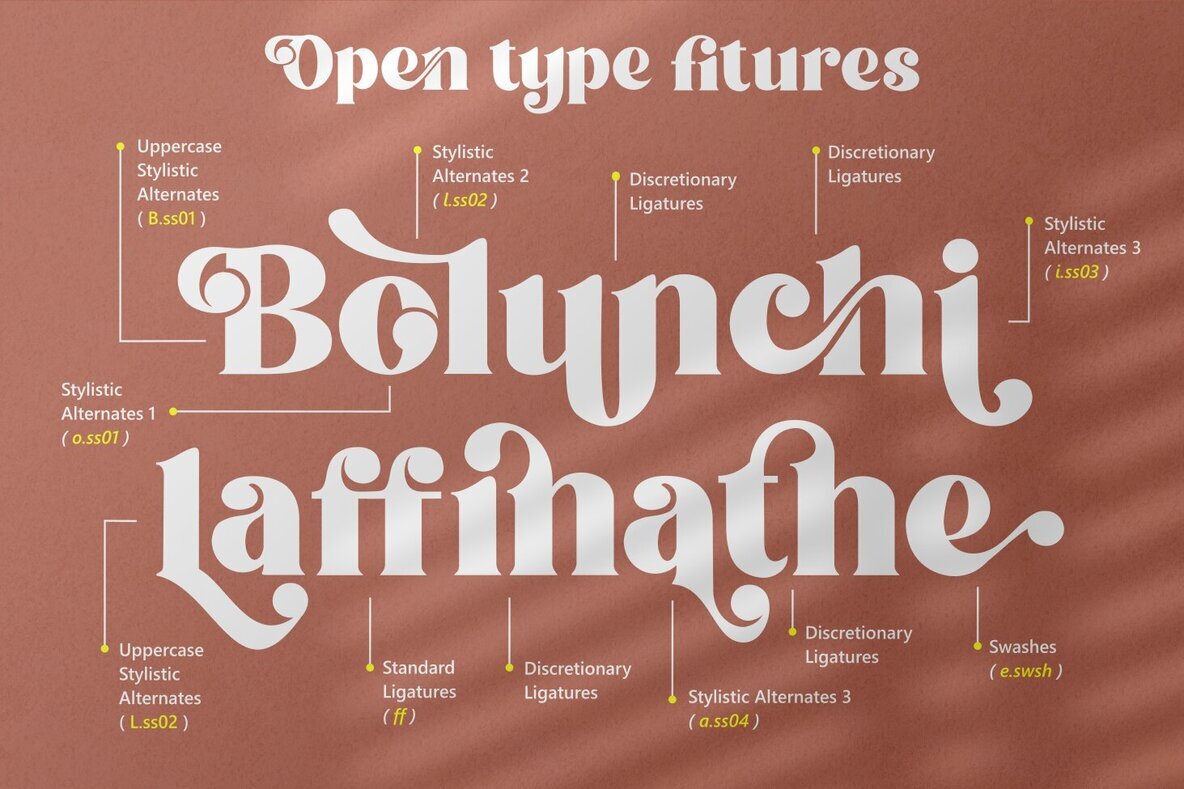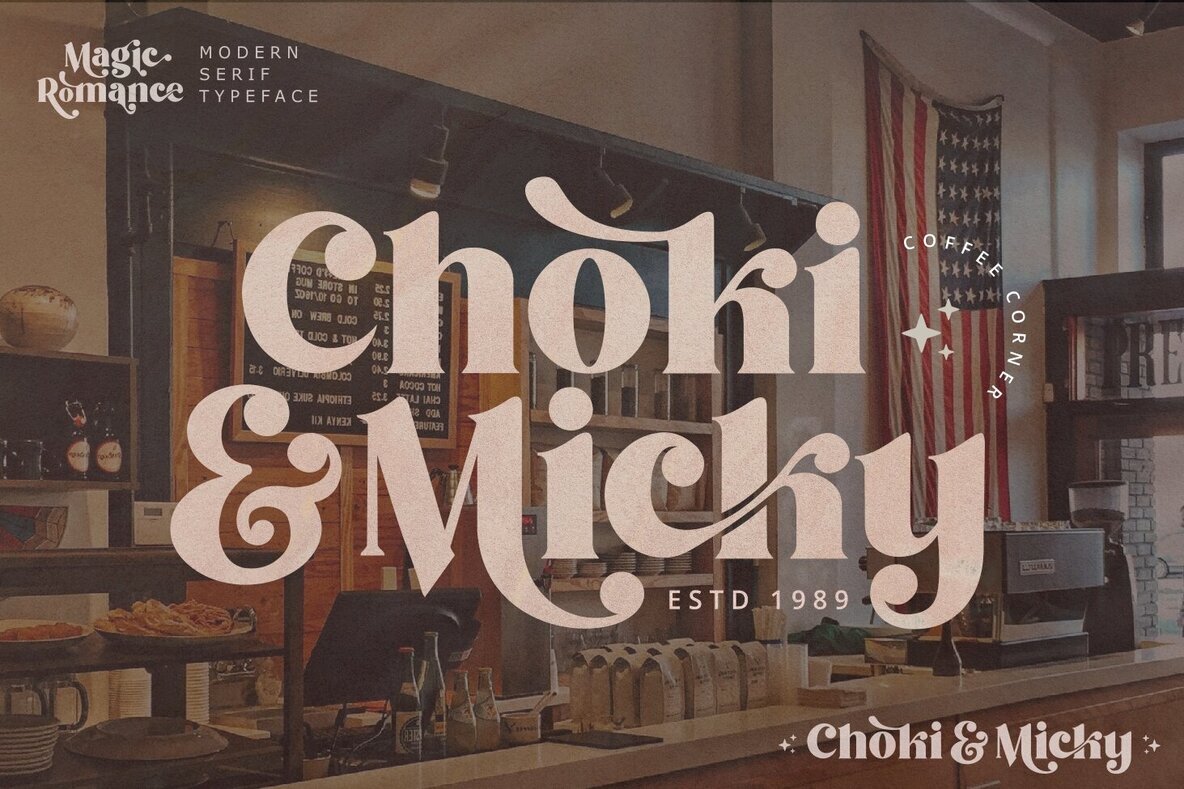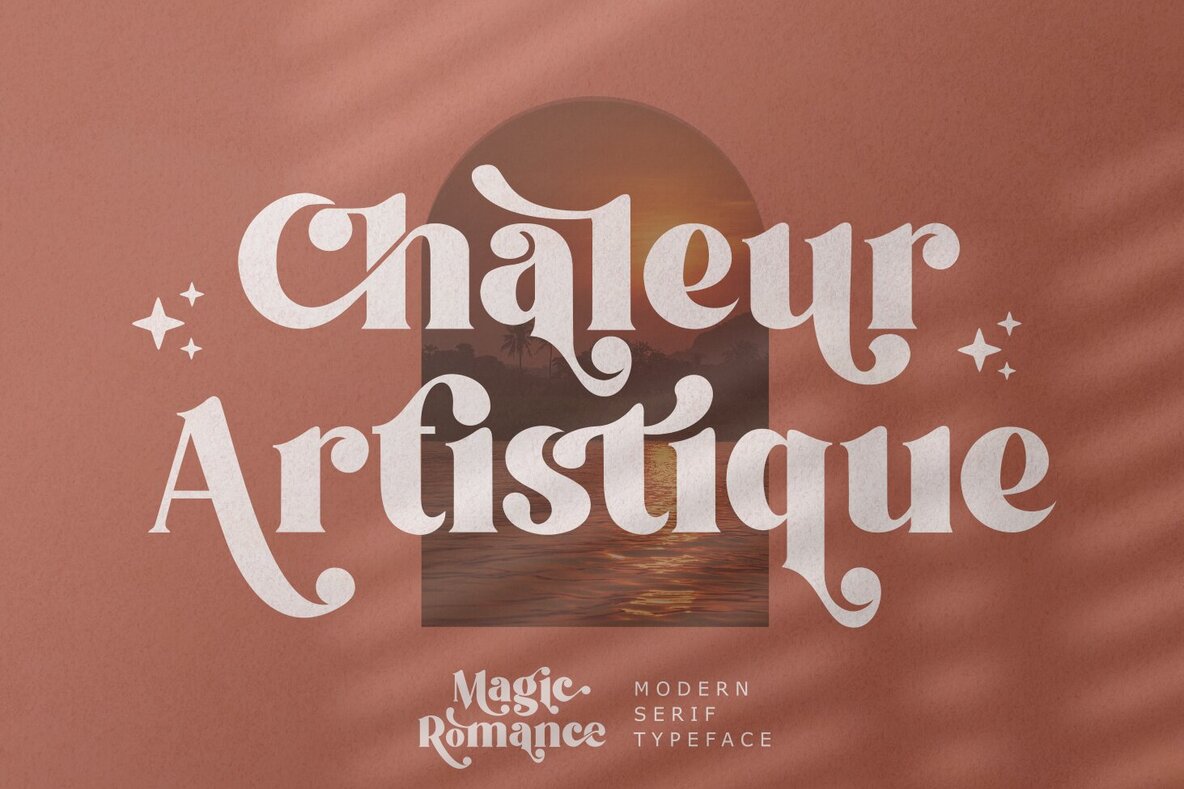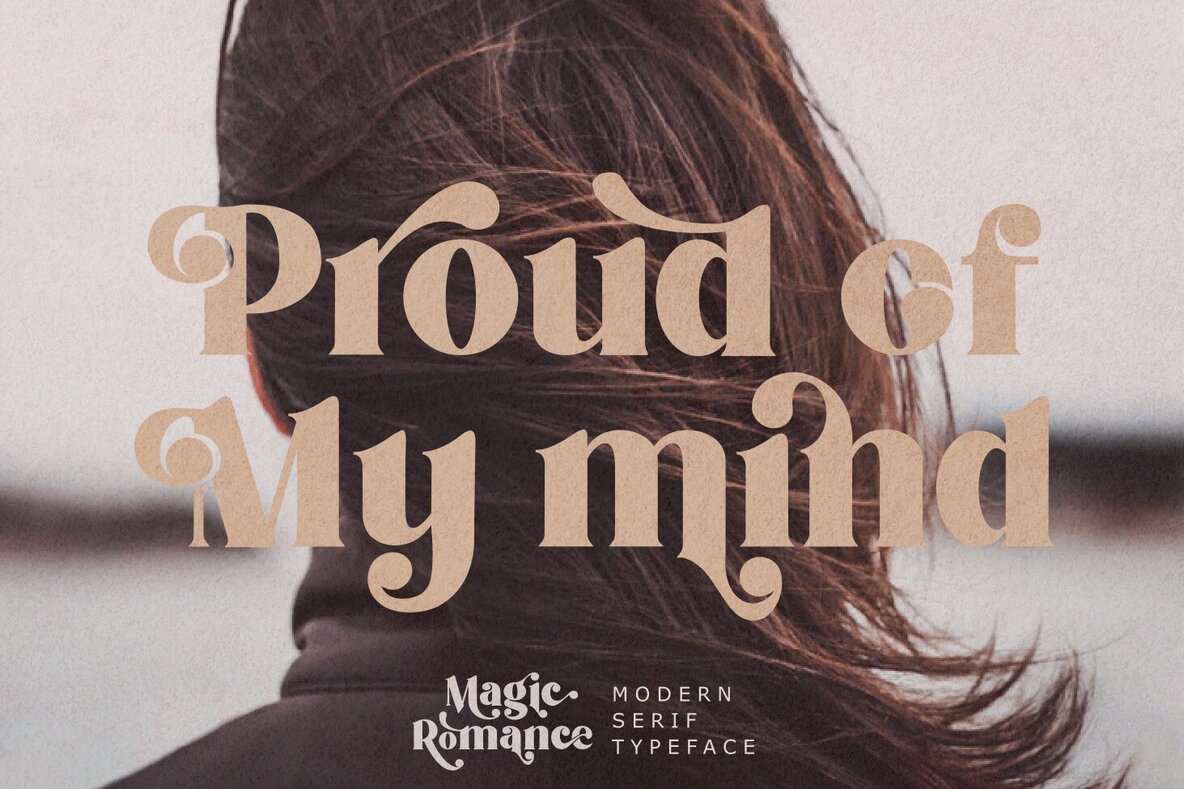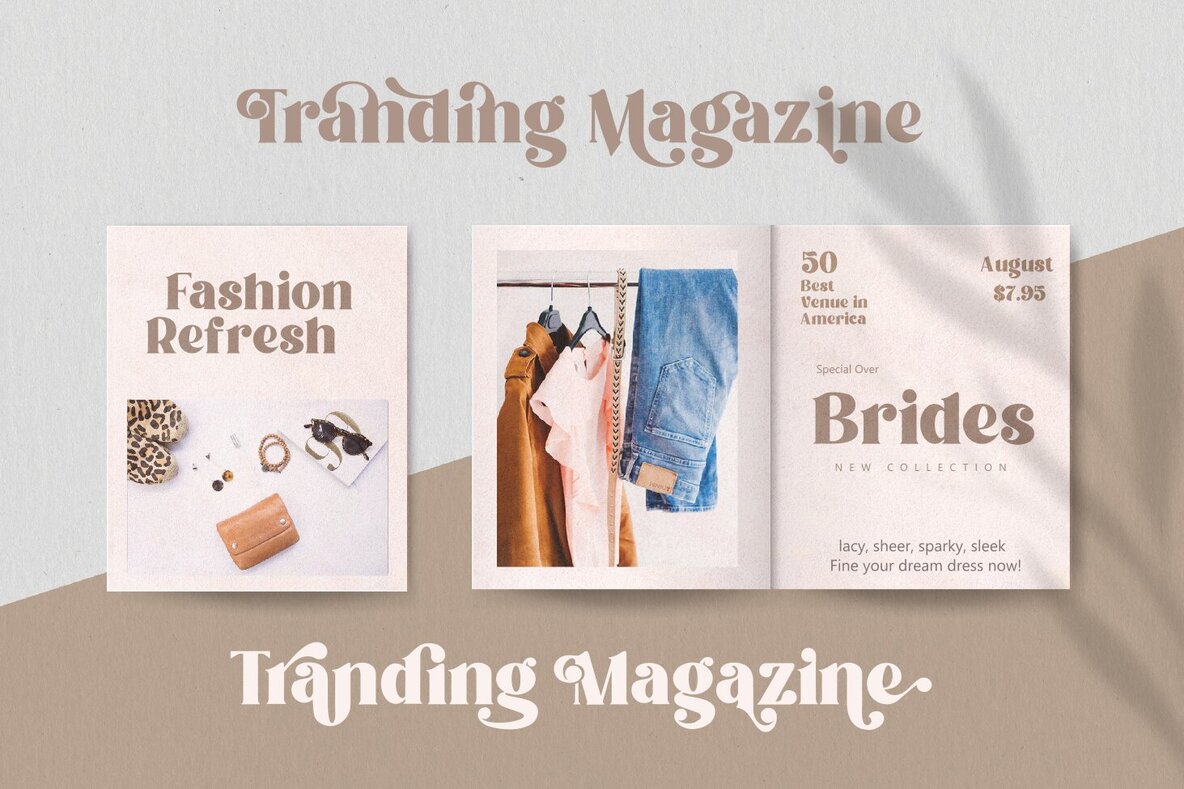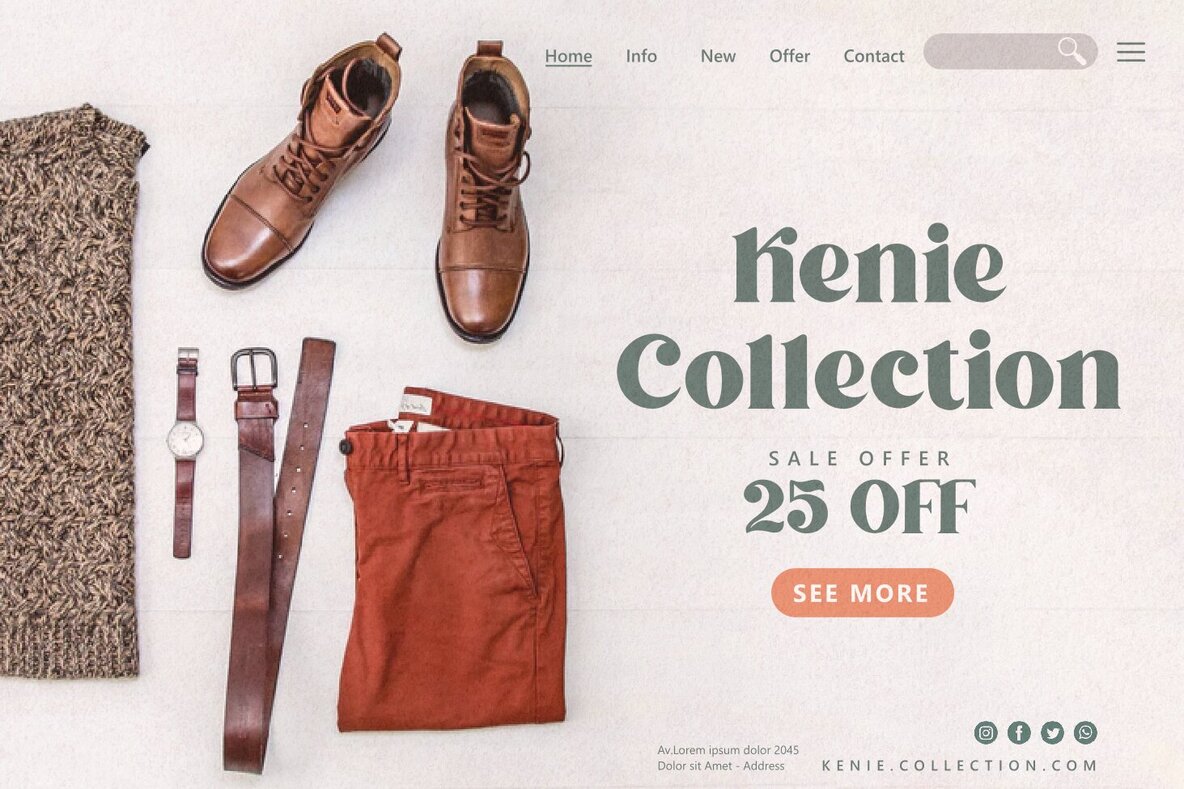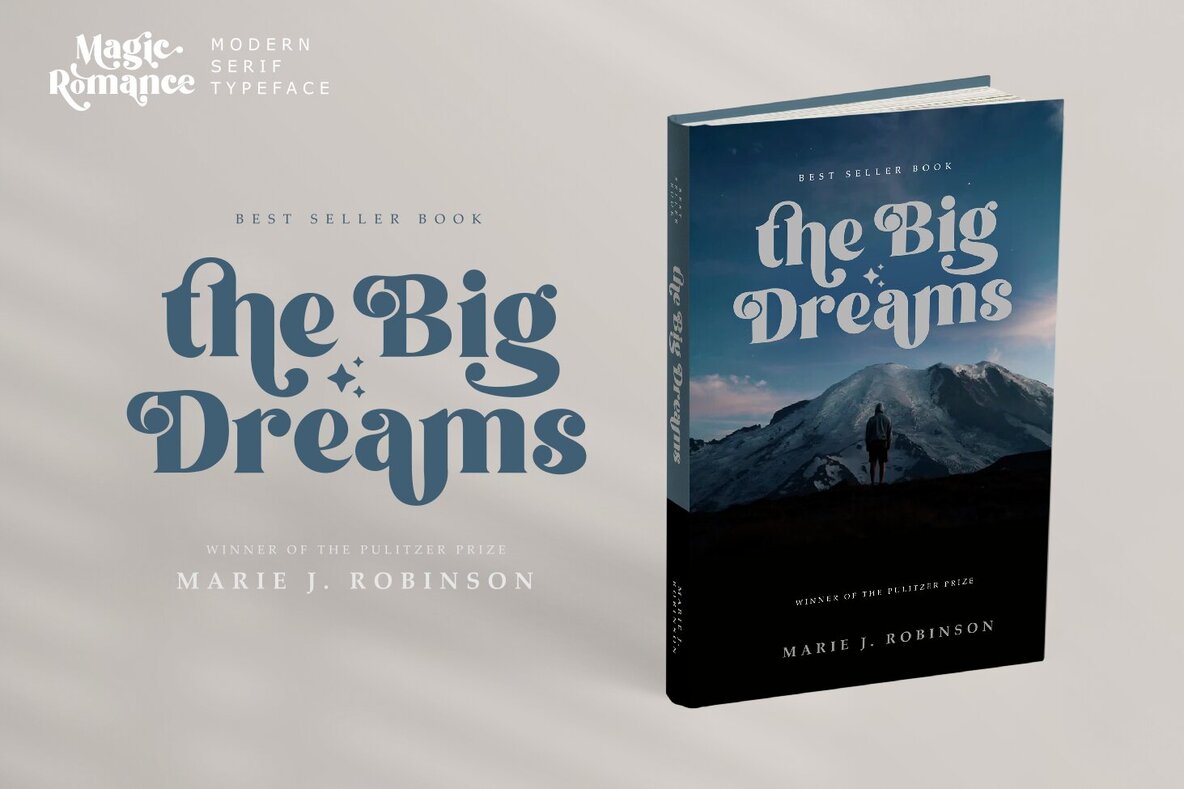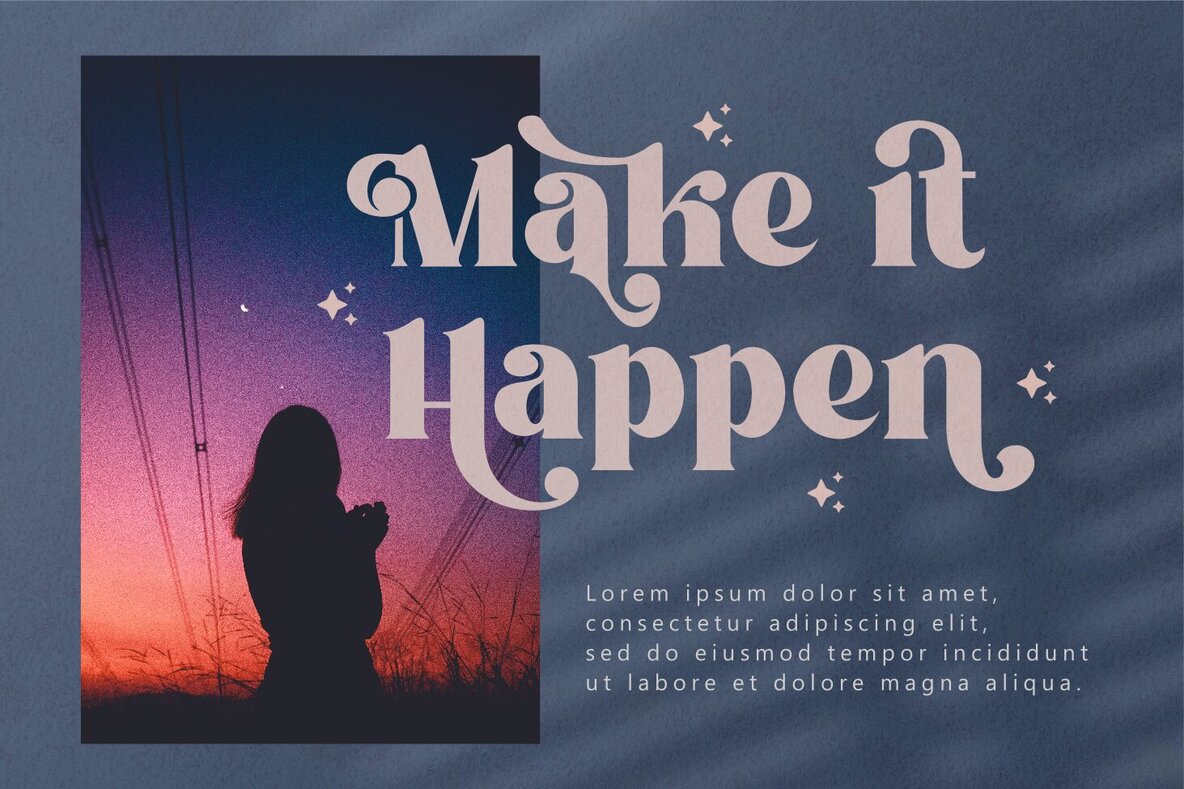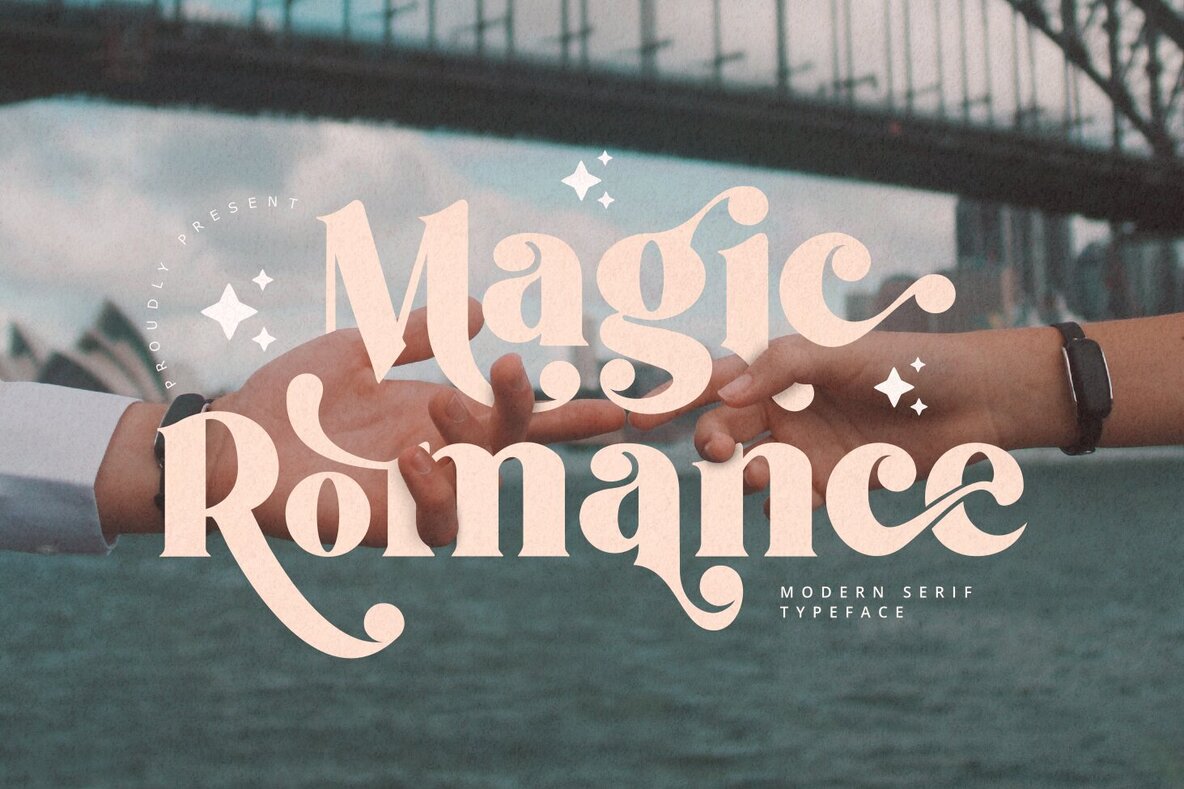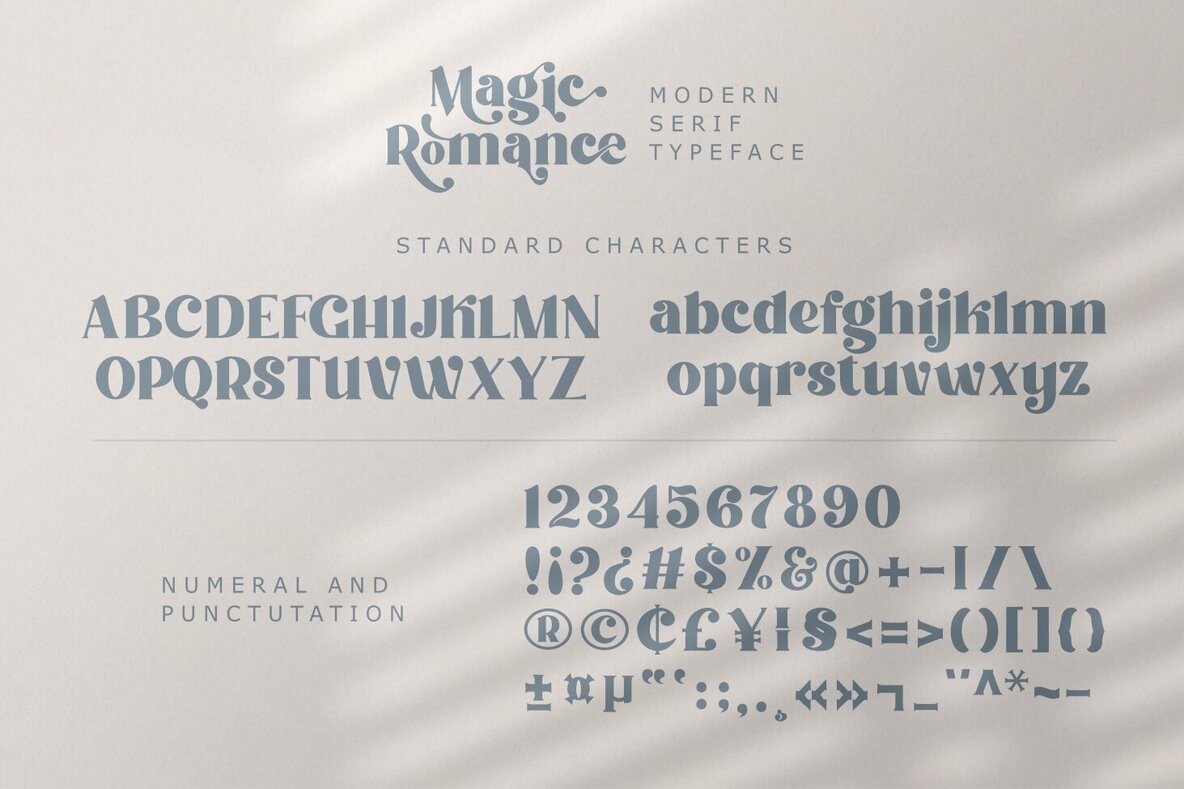
Magic Romance Font
Magic Romance
Magic Romance is a sophisticated serif font designed to bring a touch of elegance to your projects. Perfect for advertising, branding, logotypes, packaging, titles, headlines, and editorial design, this font is crafted to enhance any creative endeavor. Magic Romance is compatible with both PC and Mac and is easily accessible in Adobe Illustrator, Adobe Photoshop, Adobe InDesign, and even Microsoft Word. The font includes PUA encoded characters, ensuring full accessibility without requiring additional design software.Magic Romance: Modern and Elegant Serif Font